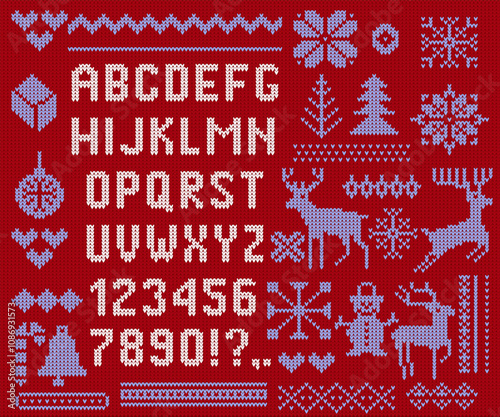
Big set bold alphabet with numbers on knit red texture. Knitted font on sweater print. Seamless pattern with zigzag, holidays element. Christmas font and numbers Vector knitted illustration.